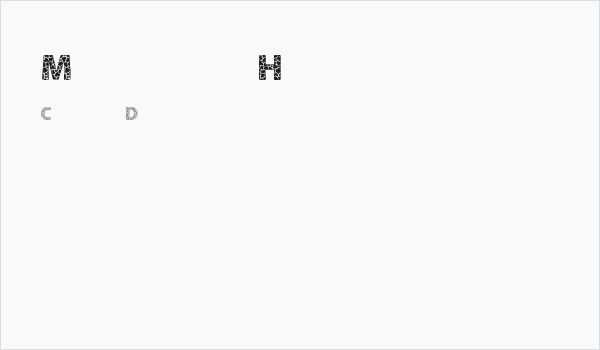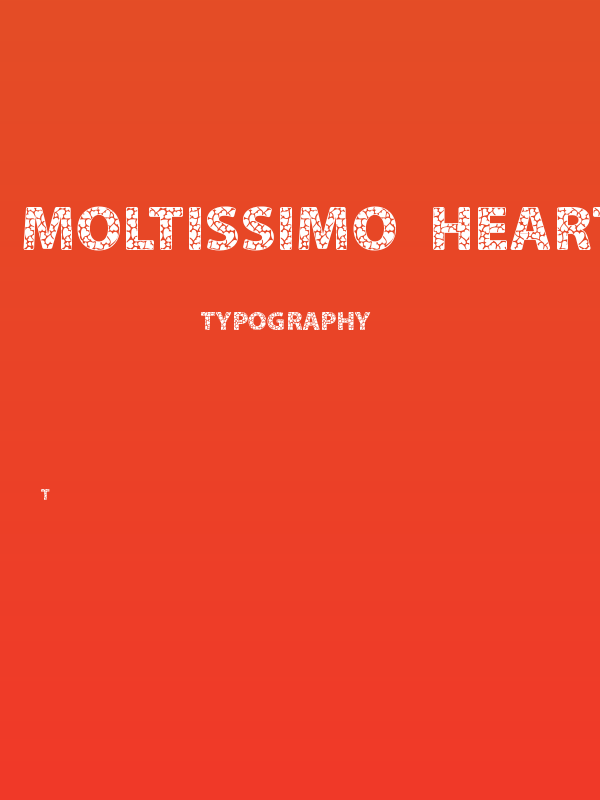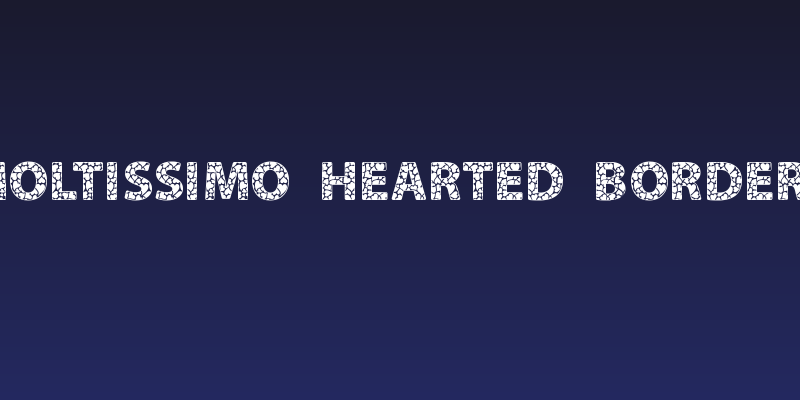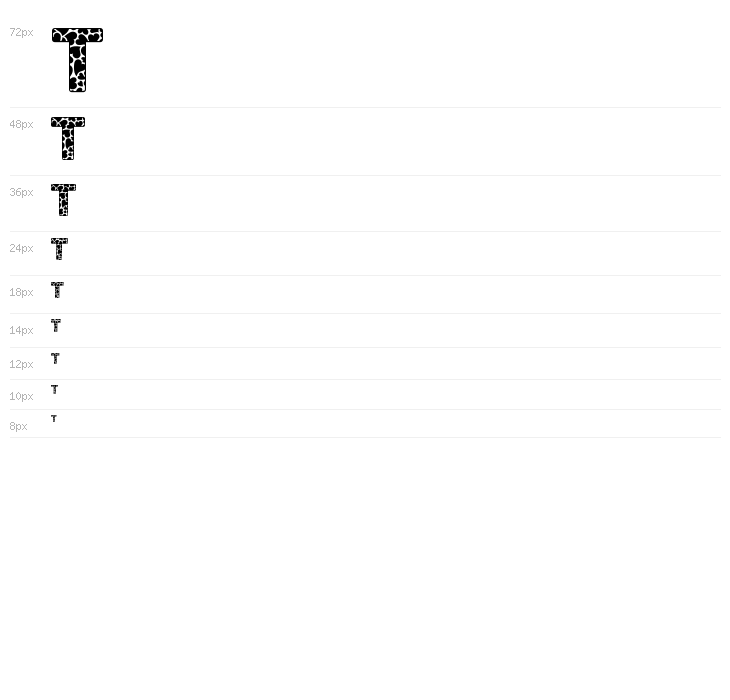
Moltissimo Hearted borders Font
Moltissimo Hearted borders Description
This font features a playful and decorative style with a unique heart pattern filling each letter. The uppercase letters are bold and eye-catching, making them ideal for designs that require a fun and lively touch. The heart motif within each character adds a whimsical and romantic feel, perfect for themed events or creative projects. The font maintains a consistent weight and width, ensuring readability while still offering a distinct visual appeal. Its decorative nature makes it stand out, suitable for projects that aim to convey warmth and affection.
| Proposed Projects | Valentine's Day cards, wedding invitations, children's party decorations, playful branding materials. |